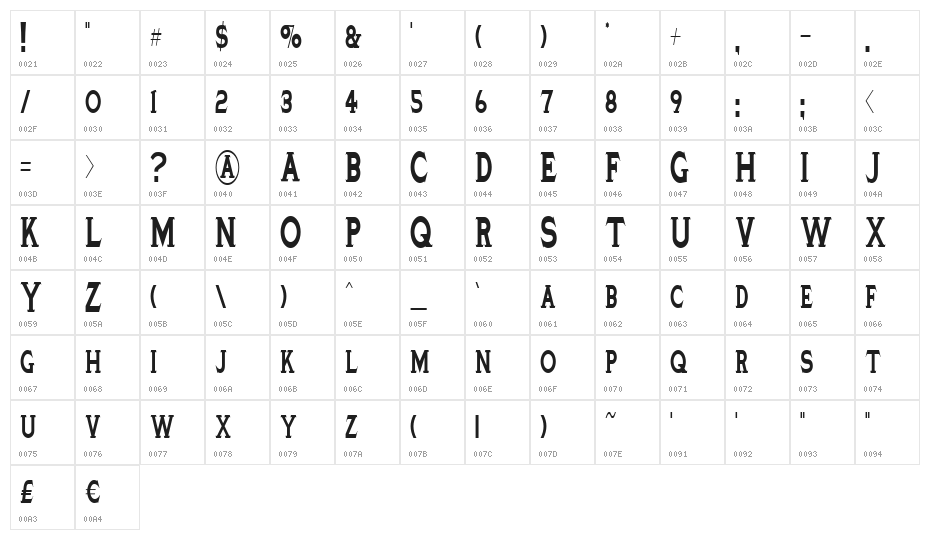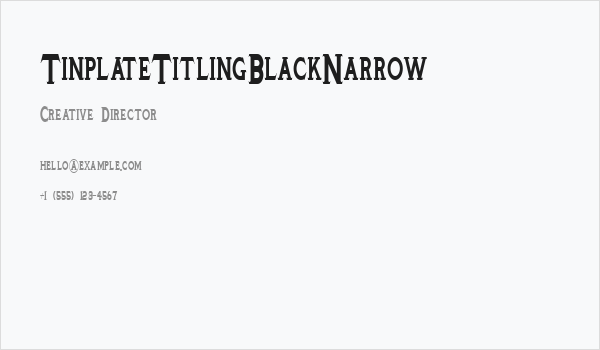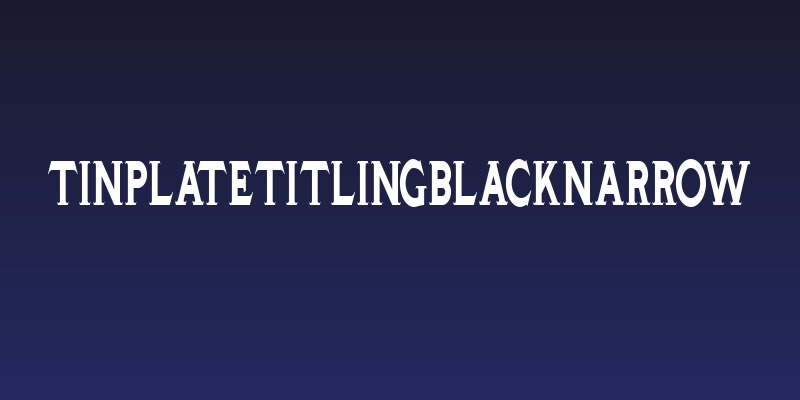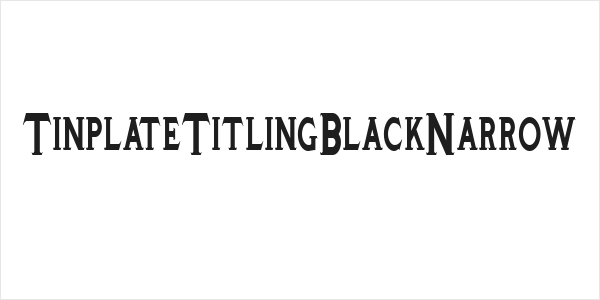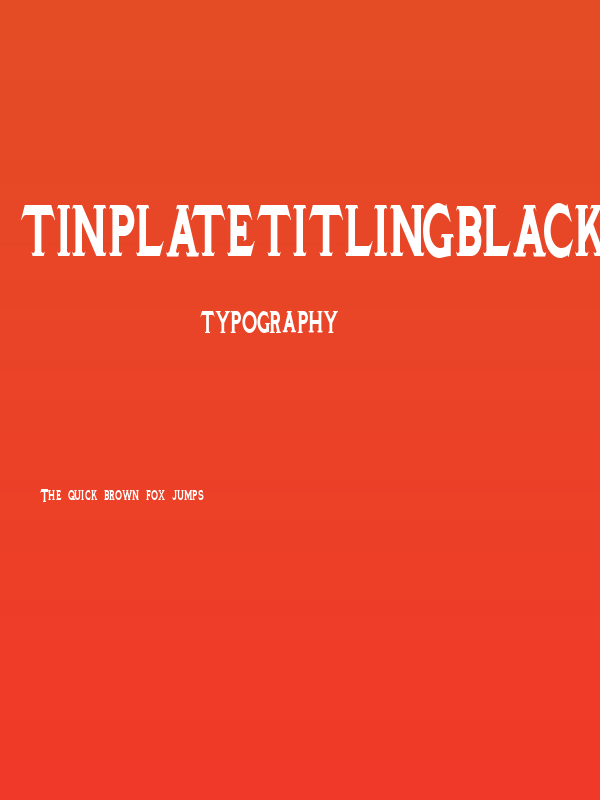
TinplateTitlingBlackNarrow Font
TinplateTitlingBlackNarrow Description
This font features a bold and narrow design, characterized by its strong, impactful presence. The letters are tightly spaced, creating a compact and cohesive look. The strokes are thick and uniform, contributing to a high contrast appearance that enhances readability and visual impact. The overall style is modern and assertive, making it suitable for attention-grabbing headlines and titles. The font's geometric structure and clean lines give it a professional and polished feel, ideal for projects that require a strong visual statement.
| Proposed Projects | Ideal for branding, advertising, posters, and any project requiring a strong visual impact. |